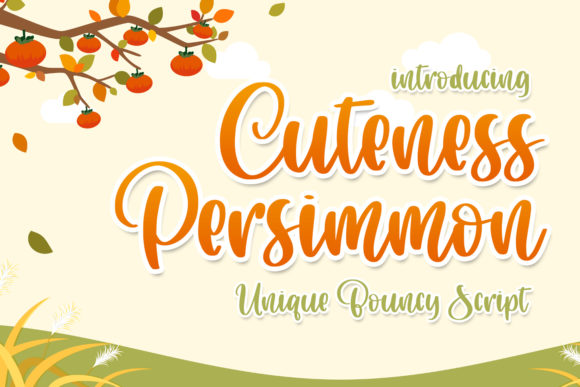
About Cuteness Persimmon Font
Cuteness Persimmon is a cute and casual handwritten font with an incredibly friendly feel. It features gorgeous swashes and ligatures that make this script incredibly versatile. Whether you’re looking for fonts for Instagram or calligraphy scripts for DIY projects, Cuteness Persimmon will turn any creative idea into a true piece of art!